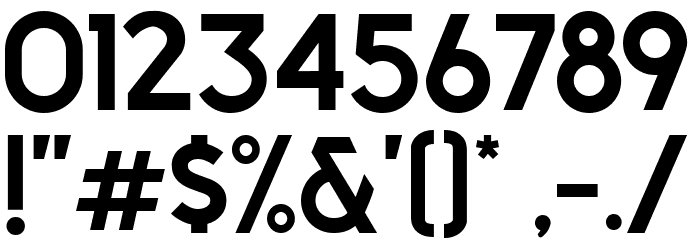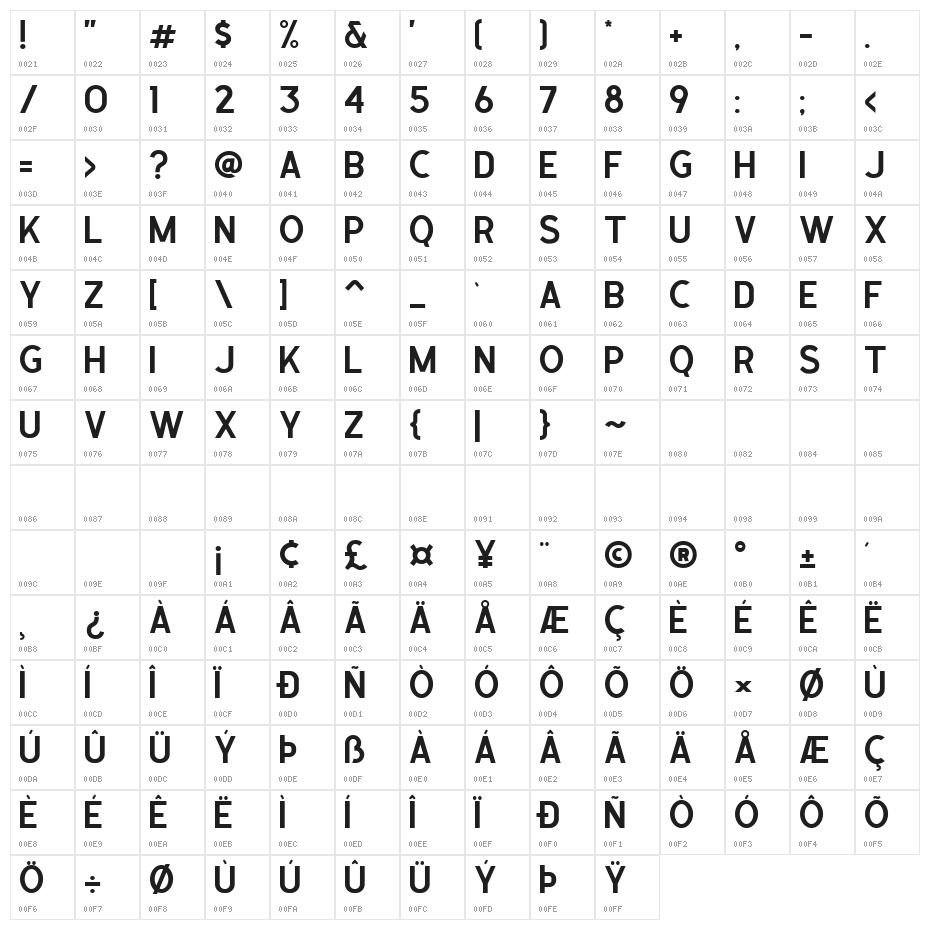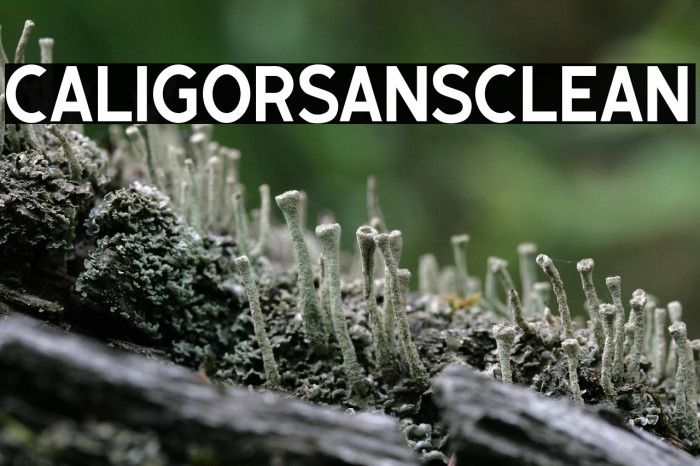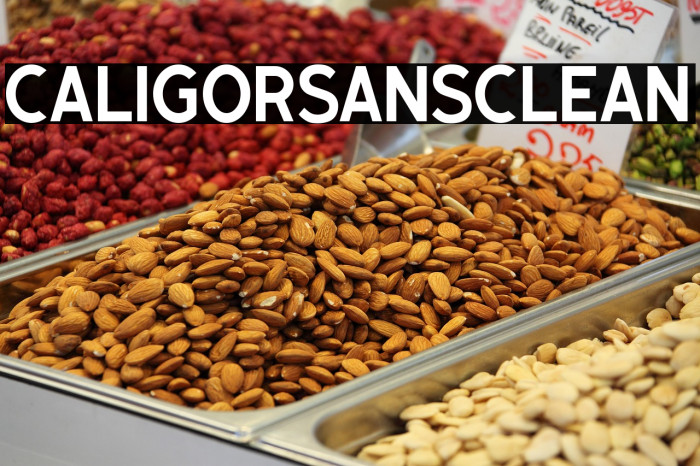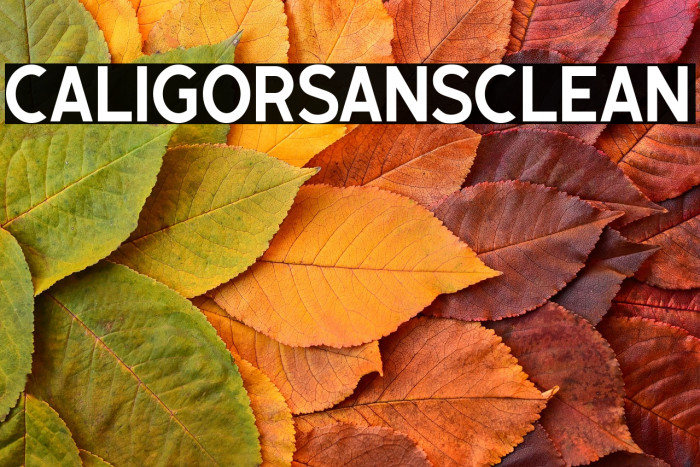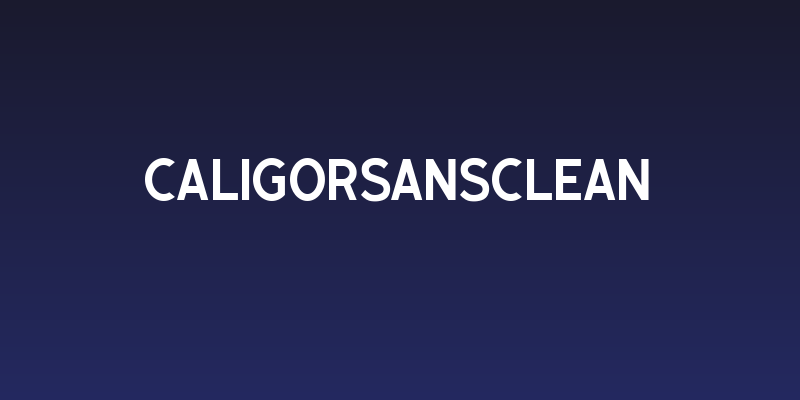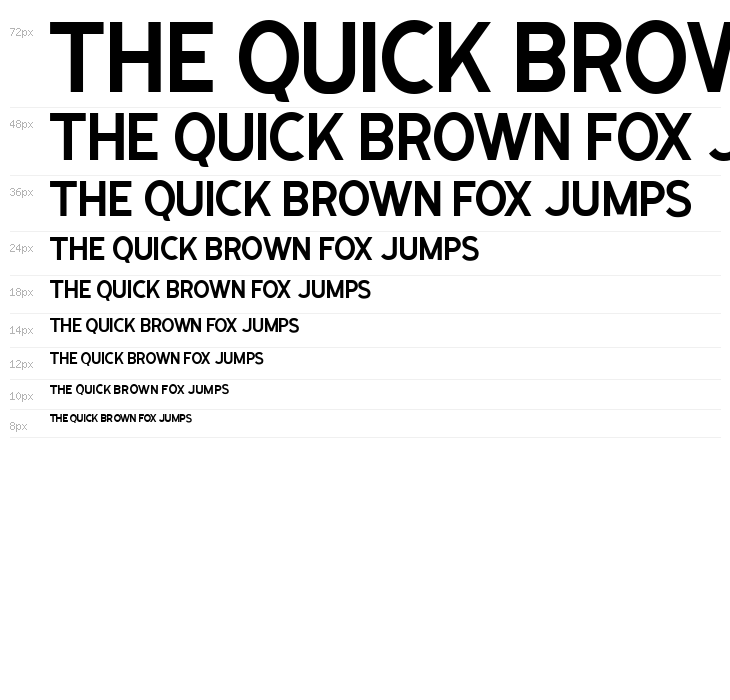
CaligorSansClean Font
CaligorSansClean Description
This font exhibits a clean, modern sans-serif style with uniform stroke widths and a straightforward geometric structure. The characters are bold and clear, making them highly legible at various sizes. The uppercase and lowercase letters maintain a consistent design ethos, with rounded edges that soften the overall appearance. The numerals are distinct and easily distinguishable, while the special characters are well-integrated into the font's design. This font's simplicity and clarity make it versatile for a wide range of applications.
| Use Case | Headlines, Logos, Digital Interfaces |
| Proposed Projects | Ideal for branding, signage, digital interfaces, and editorial design where clarity and modernity are paramount. |